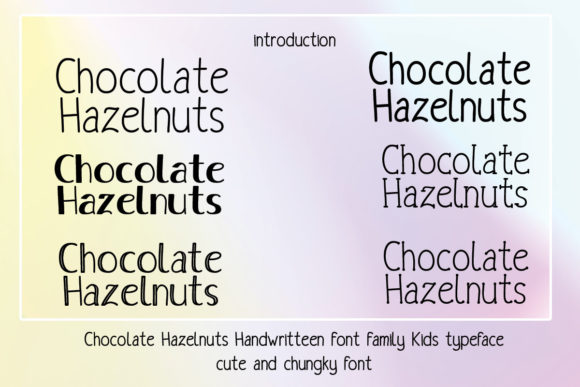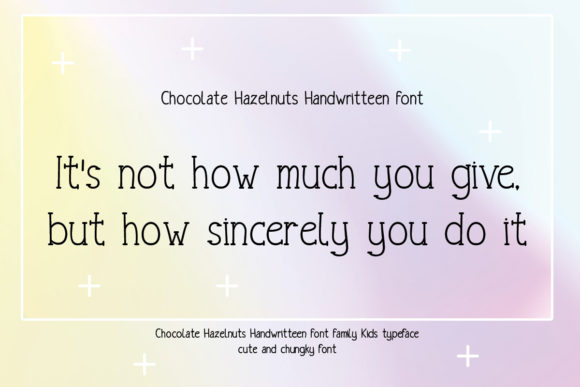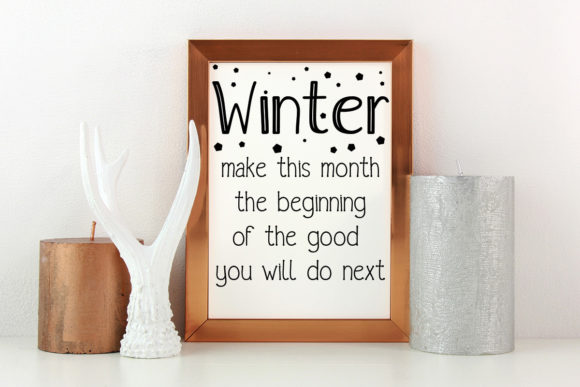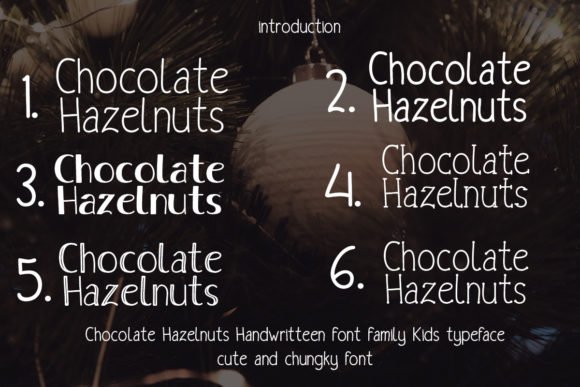
Introduction to Chocolate Hazelnuts Font
Chocolate Hazelnuts is a simple handwritten themed font with cute shapes.
Why Choose Chocolate Hazelnuts Font?
Chocolate Hazelnuts Font offers exceptional quality and versatility, making it a valuable addition to your design toolkit. Whether you’re creating for personal projects or commercial use, Chocolate Hazelnuts Font delivers professional results.